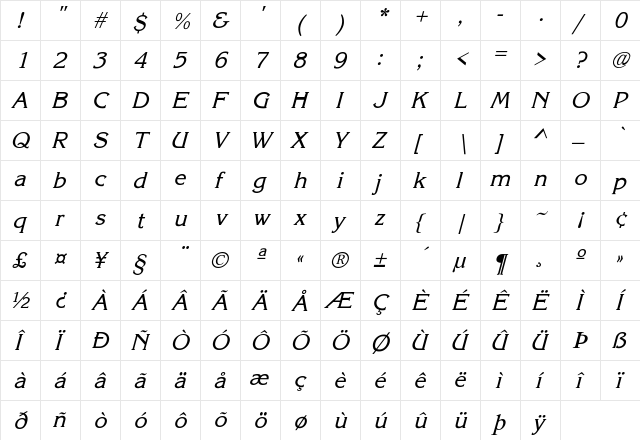
Corinna Italic Font Preview
Corinna Italic
Design Context for Corinna Typeface
Corinna is a composed and adaptable typeface that performs quietly and consistently across a wide range of design contexts. The dynamic lean of this cut emphasises speed and emphasis in any layout.
Pro Tip: Use Corinna for emphasis, pull quotes, and subheadings where its slanted energy can add rhythm to the layout.